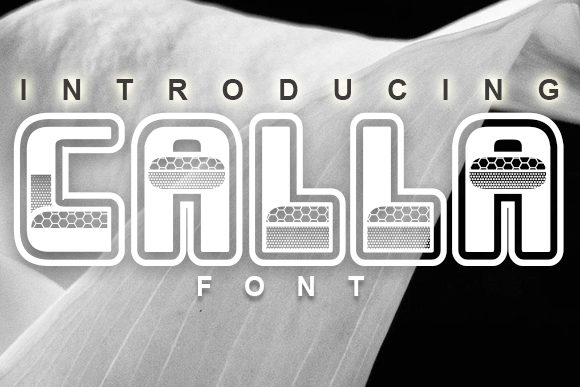
The Calla Font: A Design Game-Changer for Creatives
I’ll never forget the moment I stumbled upon the Calla font while working on a branding project for a trendy boutique hotel. I was on a tight deadline, and my design was feeling flat and uninspired. I had tried countless fonts, but none seemed to capture the essence of the hotel’s luxurious yet modern vibe. That’s when I discovered Calla – a textured, thick-lettered, and sharp-looking display font that instantly elevated my design and met my client’s expectations.
After working with Calla for several projects, here’s what I love about this font:
- ✨ Unique texture: Calla’s subtle texture adds a layer of depth and visual interest to any design.
- ✅ Versatility: This font is perfect for display text, titles, and headings, but it also works well for short paragraphs and descriptions.
- 💡 Instant impact: Calla’s bold and sharp design makes it perfect for grabbing attention and creating a lasting impression.
While Calla is an amazing font, it’s not without its quirks:
- 🤔 Limited use in body text: Due to its bold and textured nature, Calla might not be the best choice for lengthy body text.
- ⚠️ Glyph limitations: Some users have reported limited glyph options, which might restrict customization.
One of the standout features of Calla is its OpenType features and glyphs. These allow you to customize the font to your liking and add an extra layer of creativity to your designs.
Calla was designed by a team of creatives who wanted to create a font that would inspire and elevate designs. The font’s unique texture and bold design were inspired by the calla lily flower – a symbol of elegance and sophistication.
The design team poured their hearts into crafting a font that would be both versatile and visually striking. The result is a font that has captured the hearts of designers and creatives around the world.
| Font Name | Calla Font |
| Author | vladimirnikolic |
| What is Calla font best used for? | Calla font is best used for display text, titles, and headings, but it can also work well for short paragraphs and descriptions. |
| Is Calla font suitable for body text? | While Calla font can be used for body text, it might not be the best choice due to its bold and textured nature. |
| Is Calla font available in different weights and styles? | Yes, Calla font comes in different weights and styles, including regular, bold, and italic. |